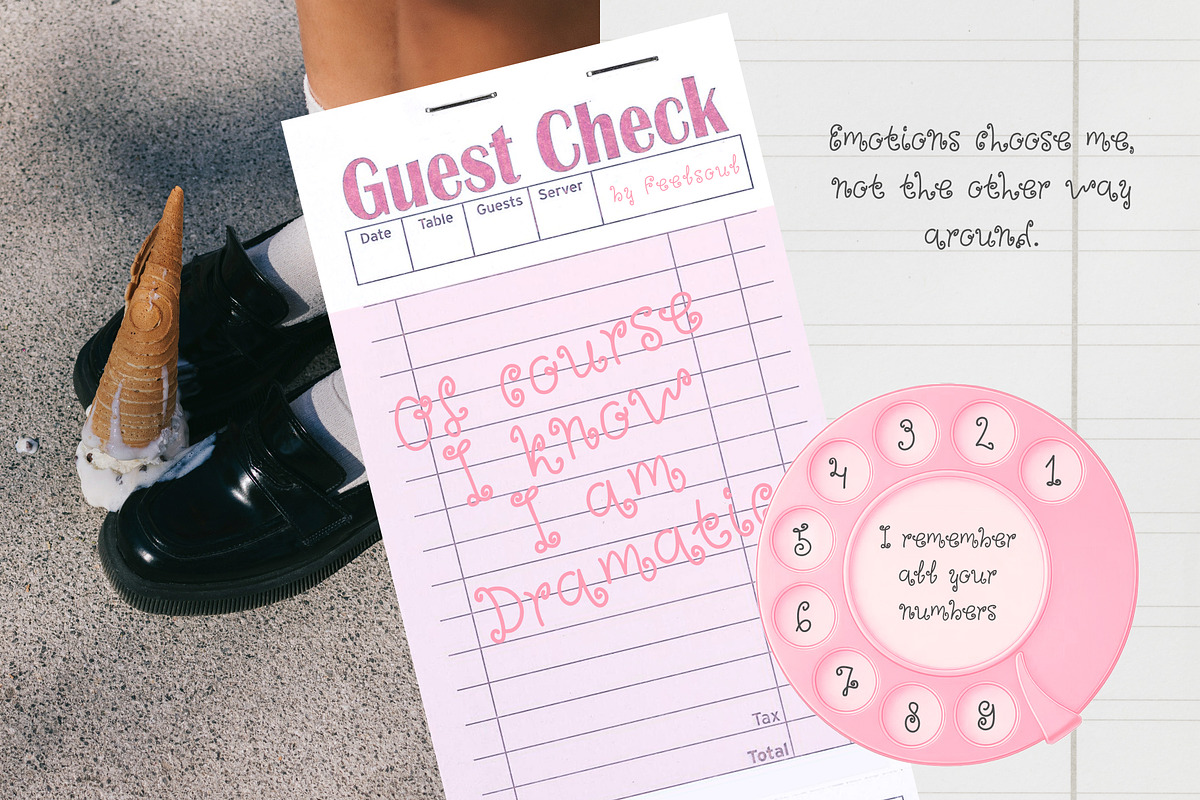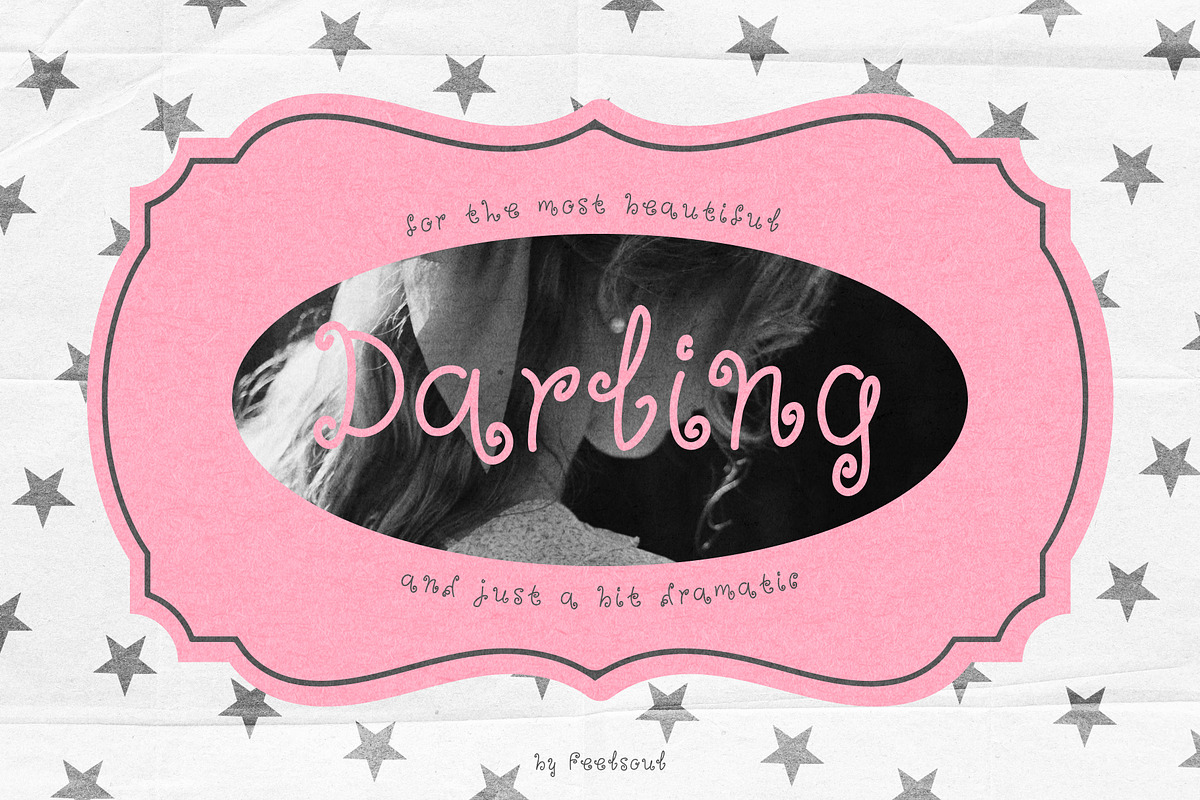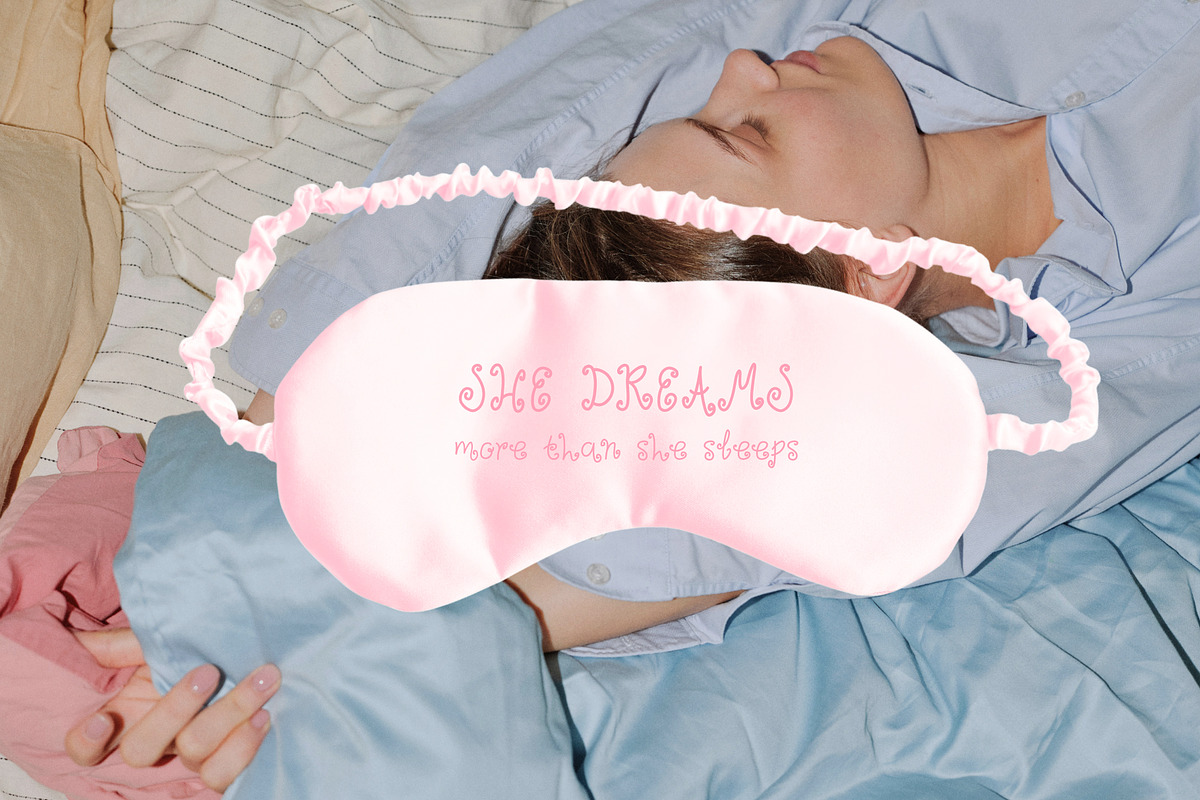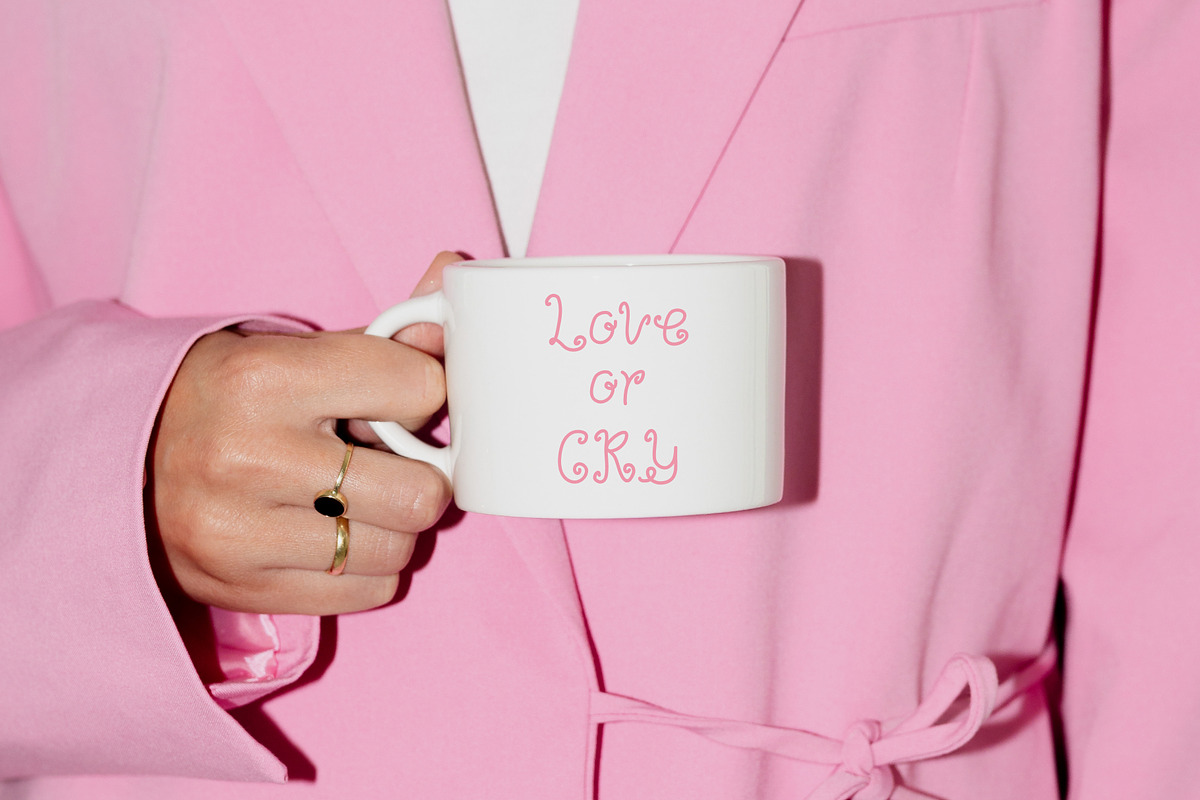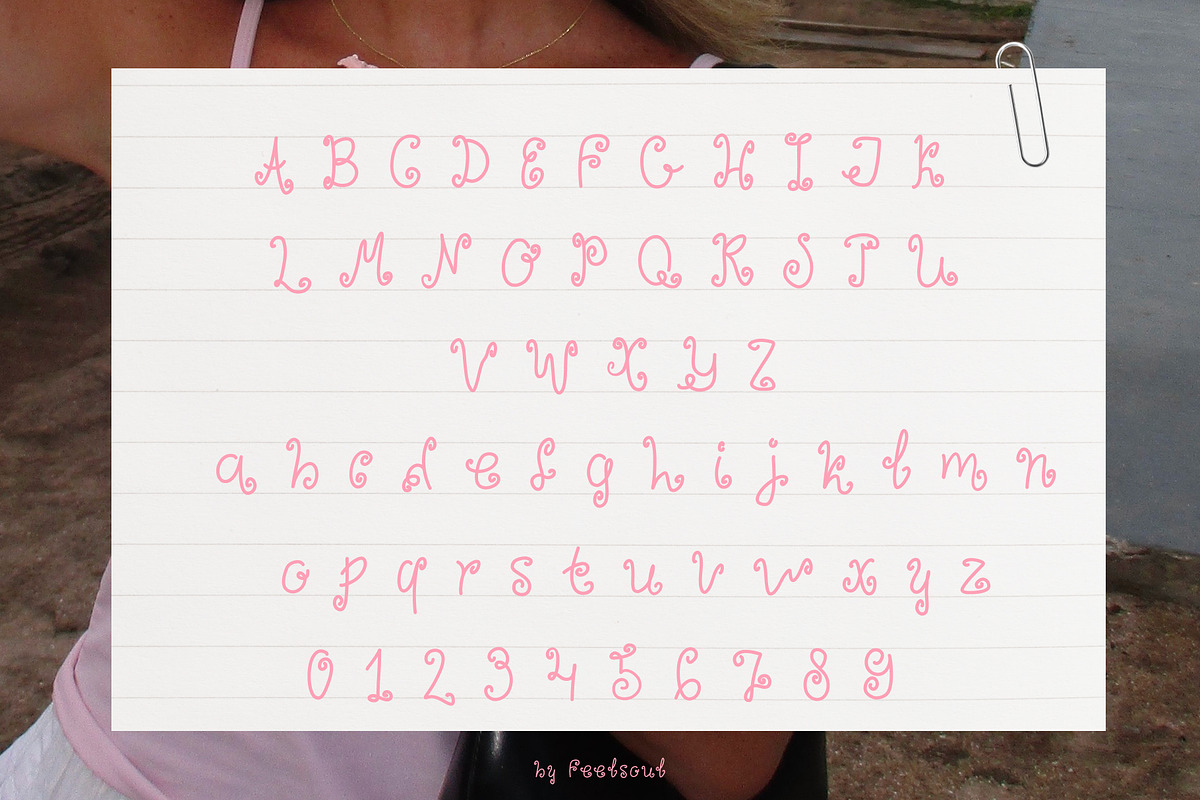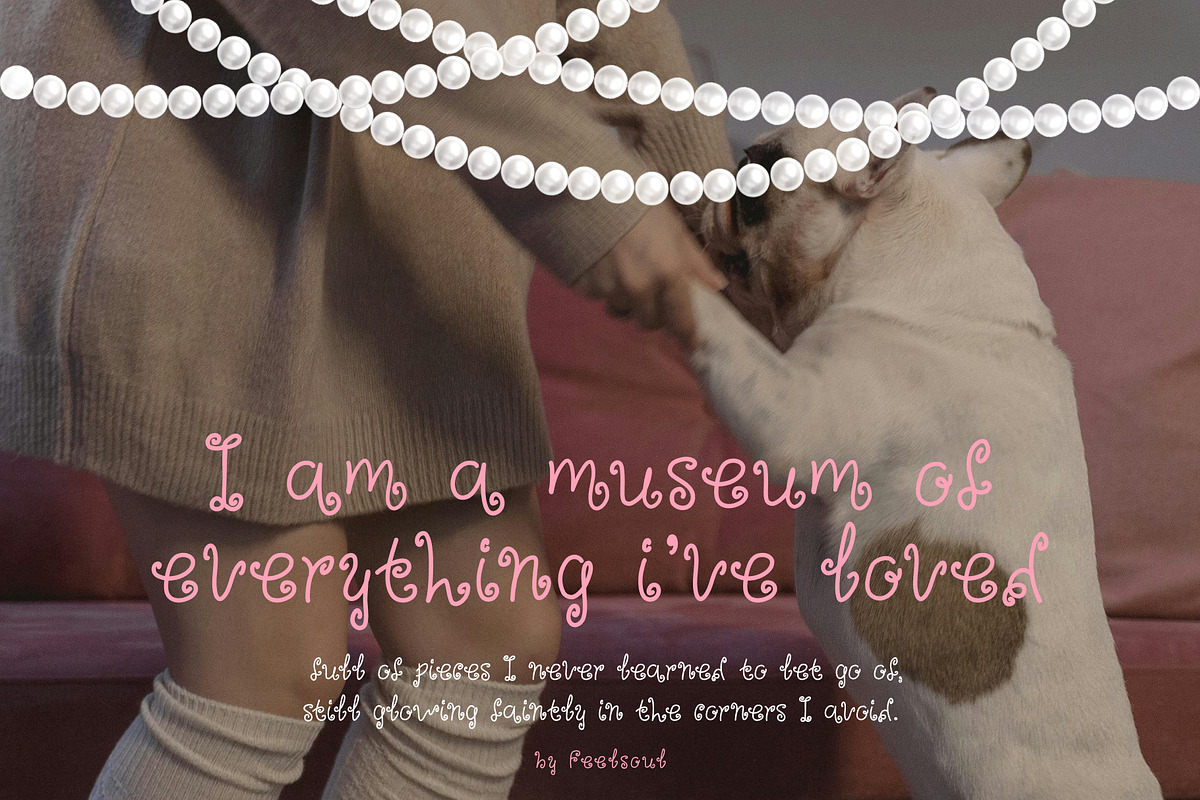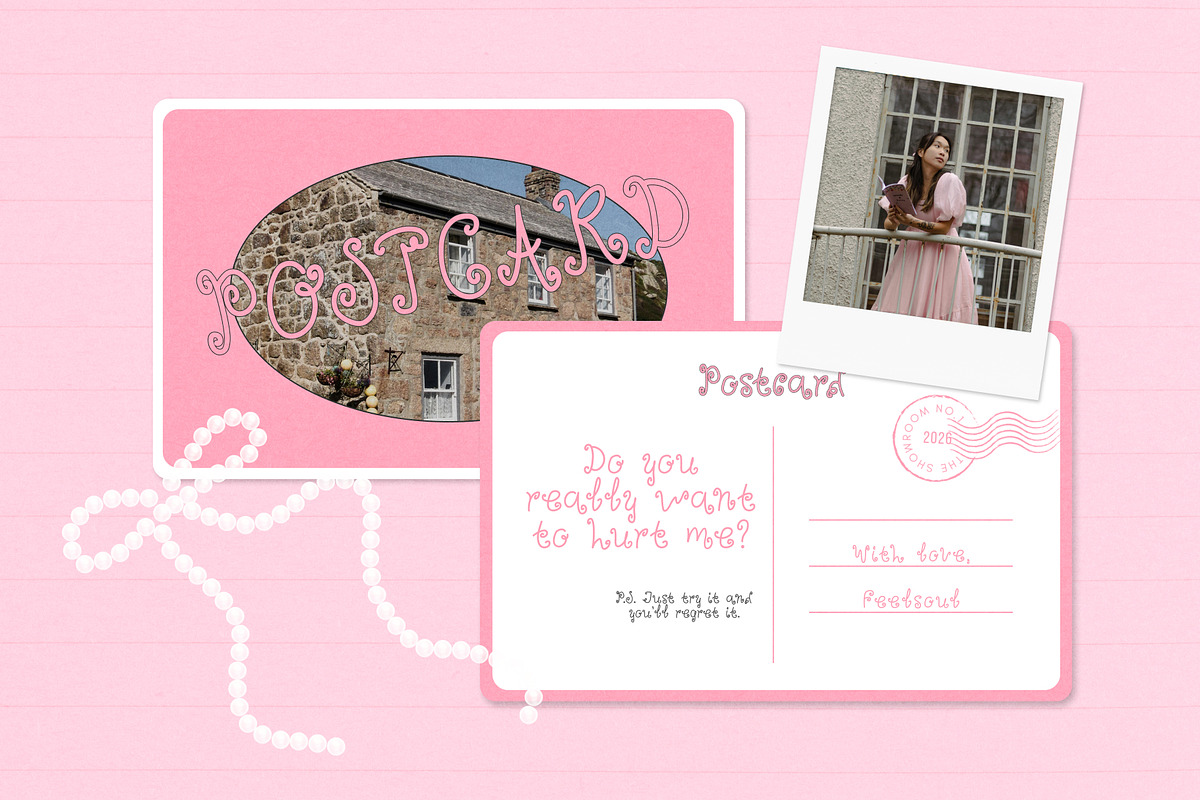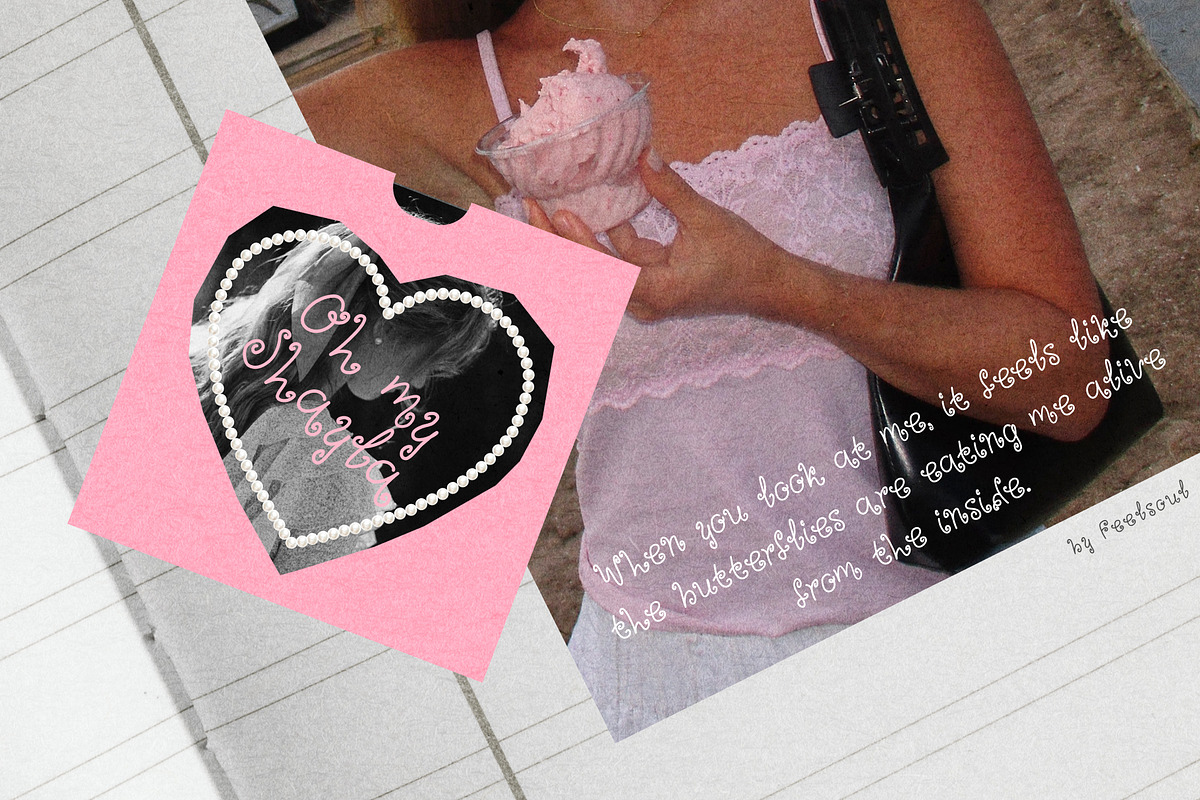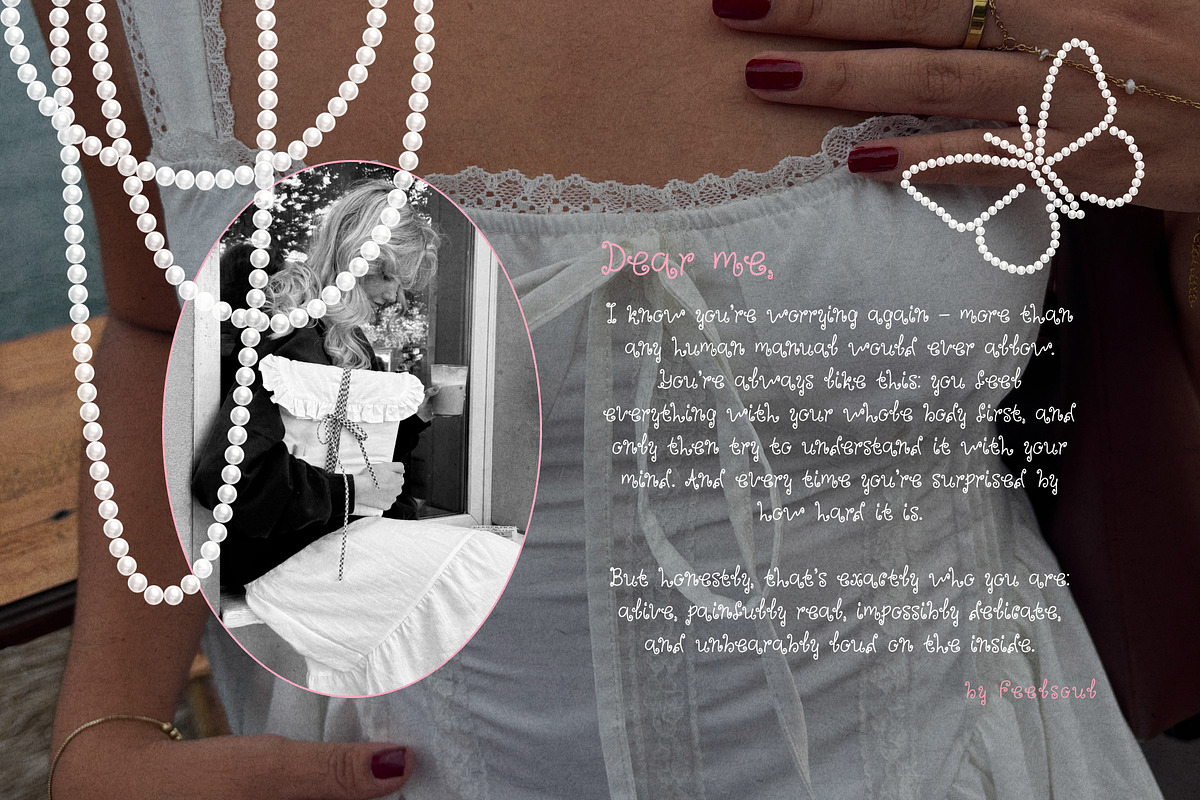
Darling Girly Font
Darling Girly Font is a charming handwritten font designed to bring sweetness and romance to your designs. Perfect for business cards, invitations, blogs, packaging, posters, and digital content. Its smooth lines and playful swirls add a light, feminine touch, making every composition unique.
Darling Girly Font is the perfect choice for anyone looking to add softness and charm to their projects. Its light and airy style makes it versatile for soft girl designs, romantic posters, packaging, and digital content.